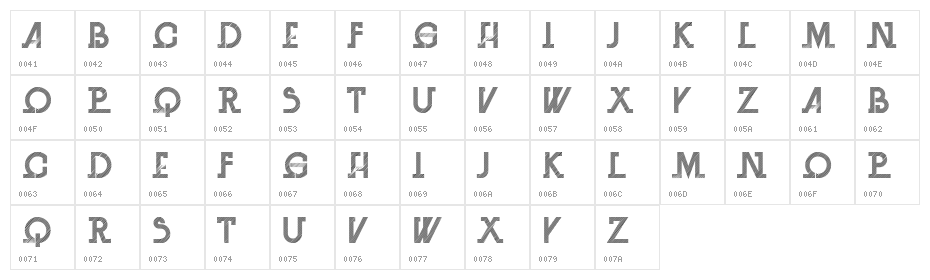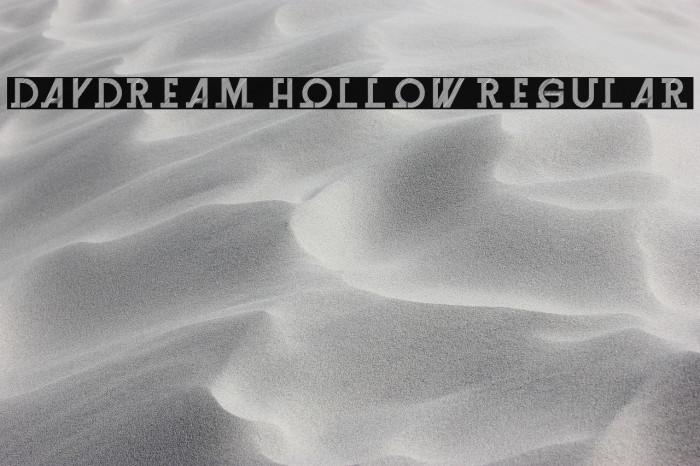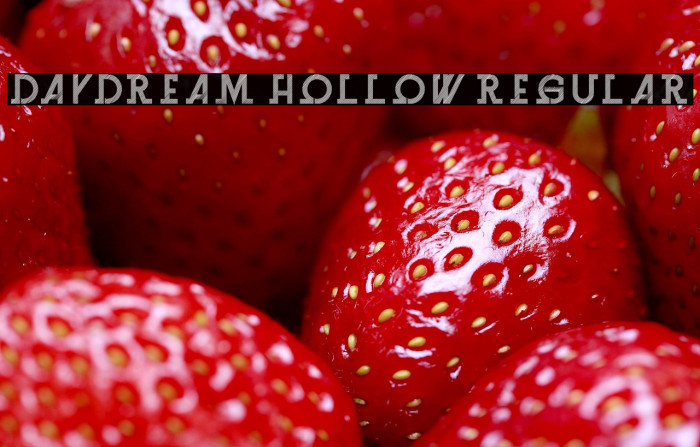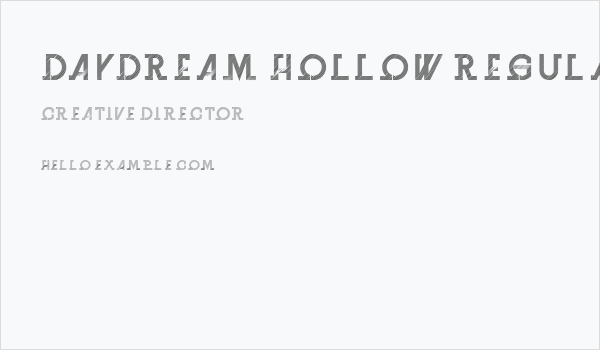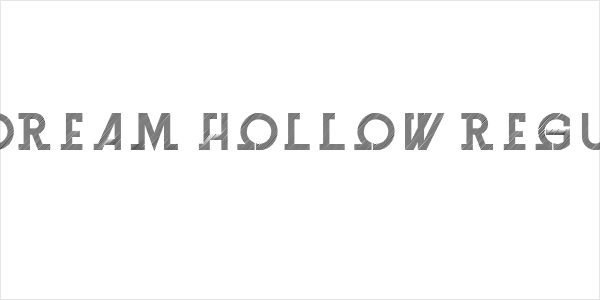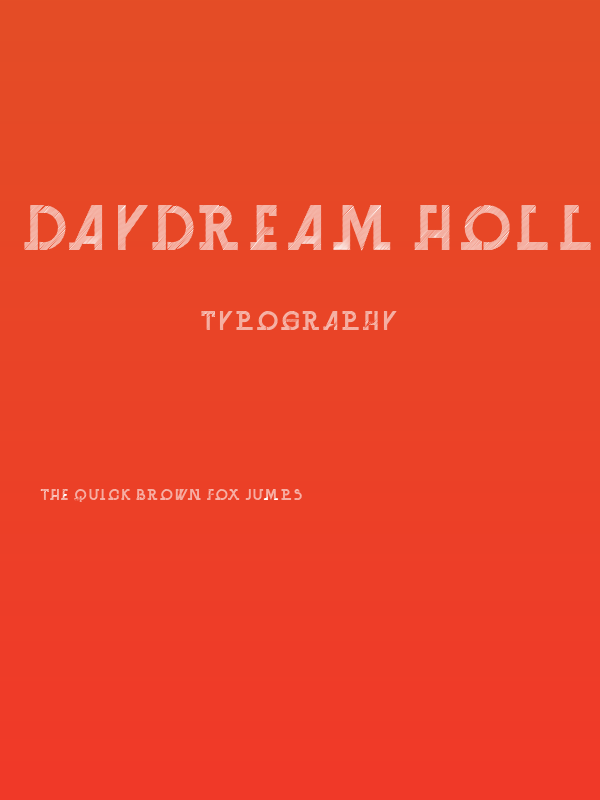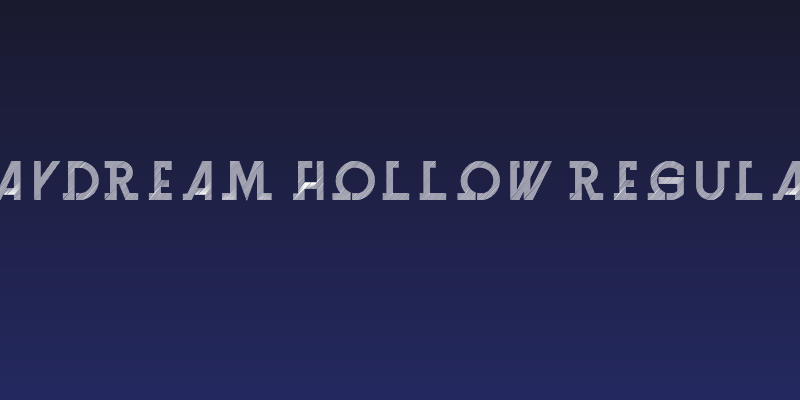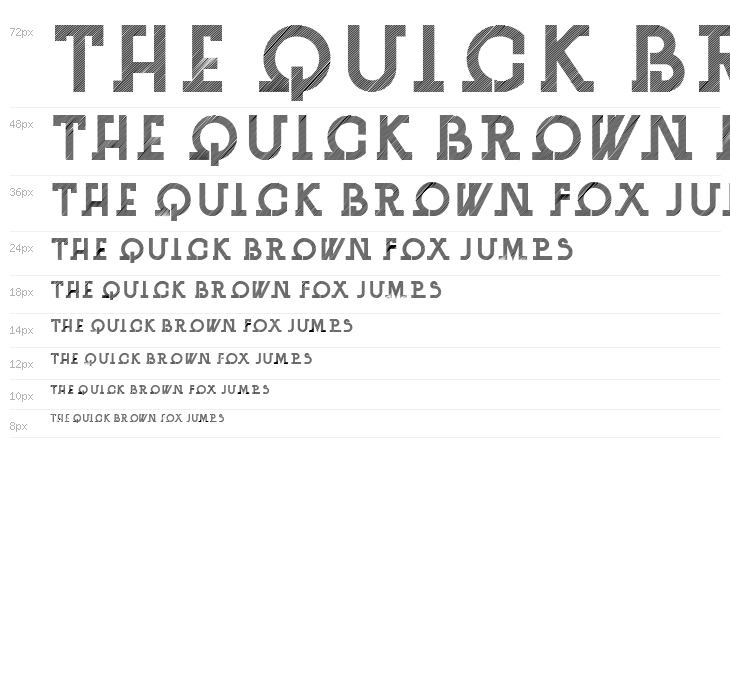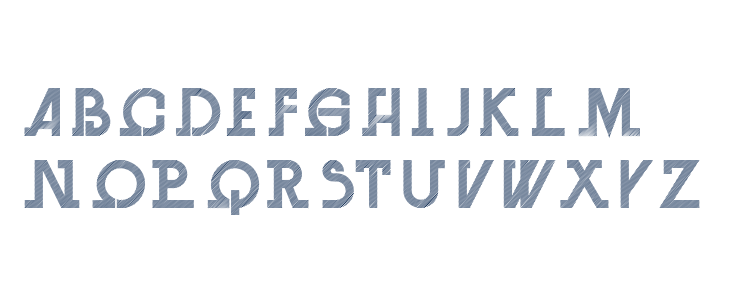
Daydream Hollow Regular Font
Daydream Hollow Regular Description
This font features a unique, hollow design with a geometric and structured appearance. The characters are composed of bold, angular lines with a consistent width, creating a modern and industrial feel. The hollow aspect adds an intriguing depth, making the letters appear as if they are carved out. This style is consistent across both uppercase and lowercase letters, as well as numbers and special characters. The font maintains a uniformity in its angular cuts and straight edges, giving it a cohesive and distinctive look.
| Proposed Projects | Ideal for branding, posters, and headlines where a modern and edgy look is desired. |